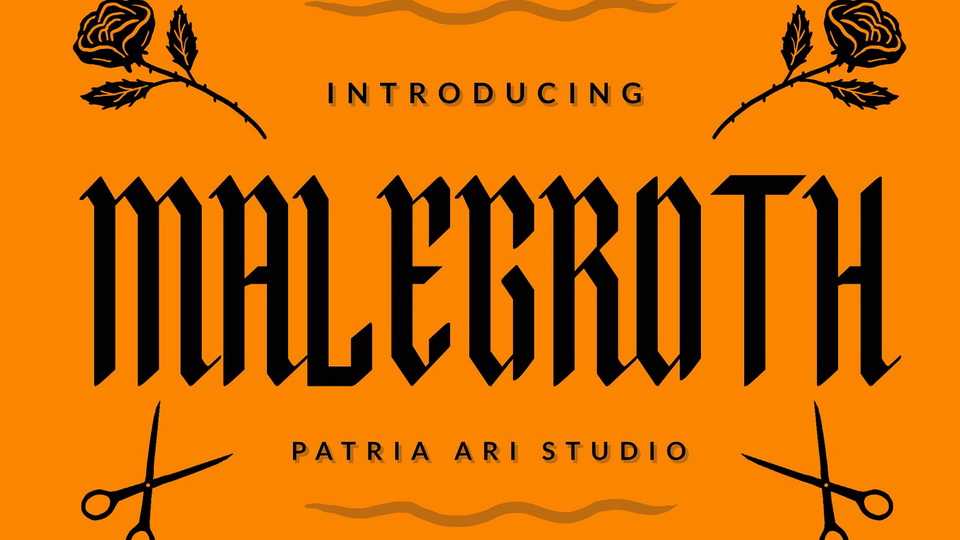
Download Malegroth font, a blackletter typeface with high shaped characters to support your brand/project. Malegroth is perfect for projects such as logos and branding, headlines, posters, special events or anything.